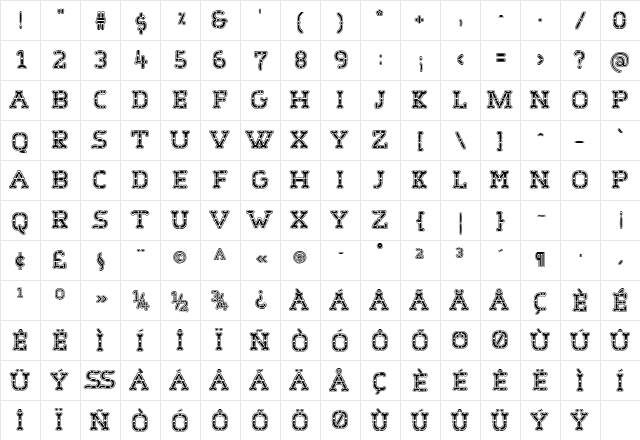
WurstchenOutlined Regular Font Preview
WurstchenOutlined Regular
Design Context for WurstchenOutlined Typeface
WurstchenOutlined is built around its visual character rather than neutral utility — its distinctive forms are designed to make an impression at display sizes.
Font Pairing: Pair with a clean neutral sans-serif for body copy to let WurstchenOutlined's character lead without overwhelming the composition.
Pro Tip: Treat WurstchenOutlined as the centrepiece of your typographic hierarchy. One strong heading set in a decorative face can carry an entire layout.